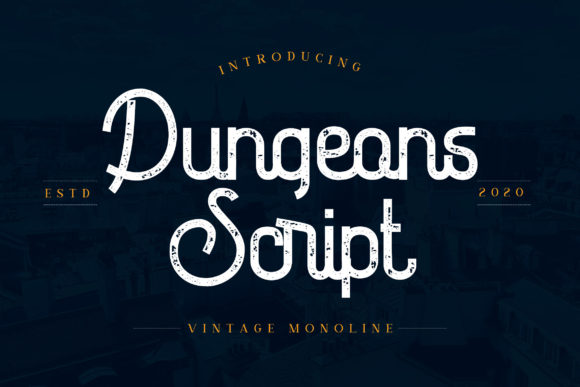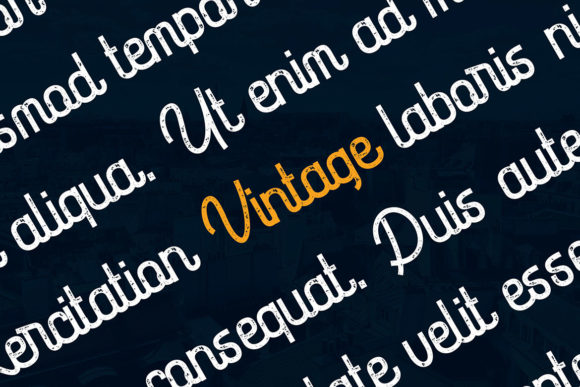
About Dungeons Font
Dungeons simplifies elegance into one truly outstanding handwritten font. This font feels playfully nostalgic and delivers an incredible vintage aesthetic. Use it to add that special retro touch to any design idea you can think of!